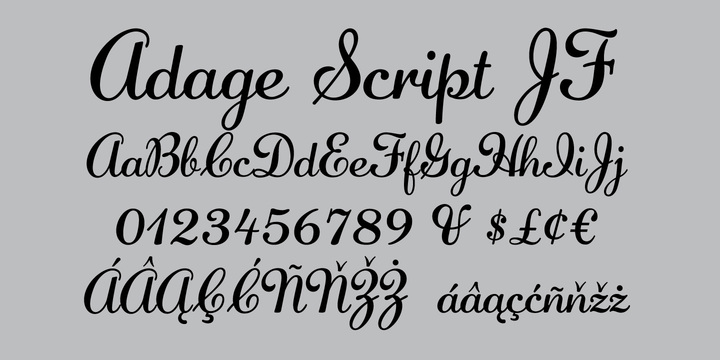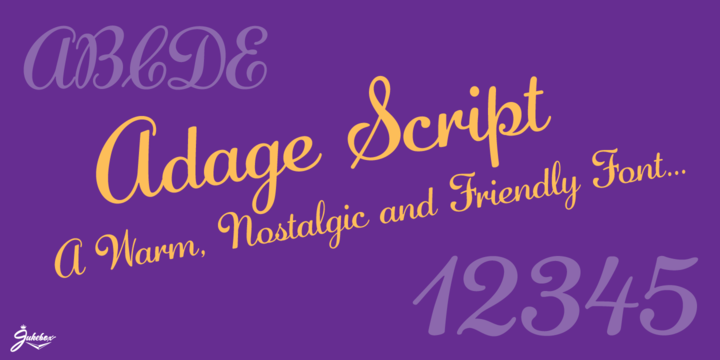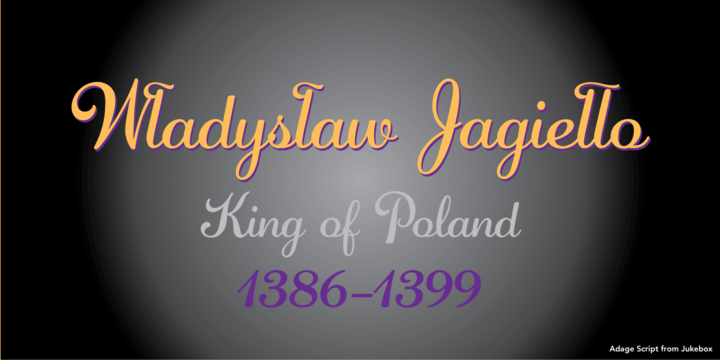
Script typefaces are based upon the varied and often fluid stroke created by handwriting, pretty much like the cursive fonts just typically more elegant.
Similar Free Fonts And Alternative For Adage Script Jf. This font uploaded 23 november 2012. This font viewed 27467 times and downloaded 12971 times. You can download this web font for free. Font adage script jf font download free at fontsov.com, the largest collection of cool fonts for windows 7 and mac os in truetype(.ttf) and opentype(.otf) format. Just click to download button. This font uploaded 23 november 2012. Is adage script jf free to download? Below you can download free adage script jf font. Adage script jf, adage display caps ssi, adage display caps ssk regular, adage. Please don't waste your time looking for a free download of adage script jf. The font is classified as regular fonts. Adage script jf font viewed 9616 times and downloaded 6529 times. Below you can see glyphs adage script jf font. You can also downloads other fonts: See preview adage script jf font and download this cool font for free.
Similar Free Fonts And Alternative For Adage Script Jf. Is adage script jf free to download? Adage script jf font viewed 9616 times and downloaded 6529 times. Adage script jf, adage display caps ssi, adage display caps ssk regular, adage. This font uploaded 23 november 2012. This font viewed 27467 times and downloaded 12971 times. Below you can see glyphs adage script jf font. Please don't waste your time looking for a free download of adage script jf. You can also downloads other fonts: This font uploaded 23 november 2012. Font adage script jf font download free at fontsov.com, the largest collection of cool fonts for windows 7 and mac os in truetype(.ttf) and opentype(.otf) format. Below you can download free adage script jf font. Just click to download button. You can download this web font for free. The font is classified as regular fonts. See preview adage script jf font and download this cool font for free.
Similar Free Fonts And Alternative For Adage Script Jf. This font uploaded 23 november 2012. Just click to download button. See preview adage script jf font and download this cool font for free. Adage script jf font viewed 9616 times and downloaded 6529 times. You can download this web font for free. This font uploaded 23 november 2012. Please don't waste your time looking for a free download of adage script jf. This font viewed 27467 times and downloaded 12971 times. The font is classified as regular fonts. Is adage script jf free to download? Adage script jf, adage display caps ssi, adage display caps ssk regular, adage. Below you can download free adage script jf font. Below you can see glyphs adage script jf font. Font adage script jf font download free at fontsov.com, the largest collection of cool fonts for windows 7 and mac os in truetype(.ttf) and opentype(.otf) format. You can also downloads other fonts:
Download 10,000 fonts with one click for $19.95. Fonts in use is a collaborative project and our collaborators are visitors like you! Search results for 'adagescript jf' (free adagescript jf fonts). The font is classified as regular fonts. Adahtype regular 8 downloads aug 28, 2017. Font adage script jf font download free at fontsov.com, the largest collection of cool fonts for windows 7 and mac os in truetype(.ttf) and opentype(.otf) format. You can download this web font for free. Adam 0 downloads aug 28, 2017. They are organized into highly regular formal types similar to cursive writing and looser, more casual scripts. Dear visitor, you went to the site as unregistered user.